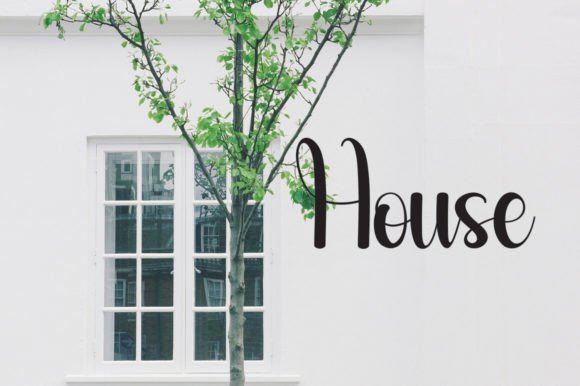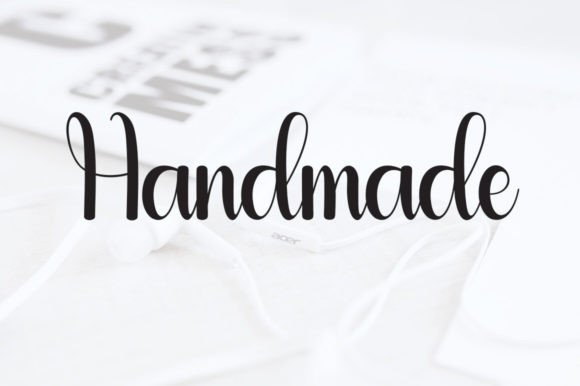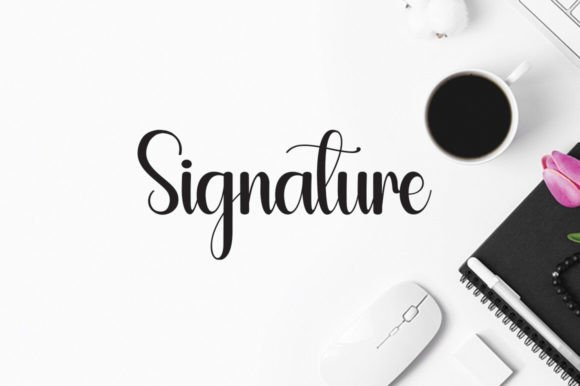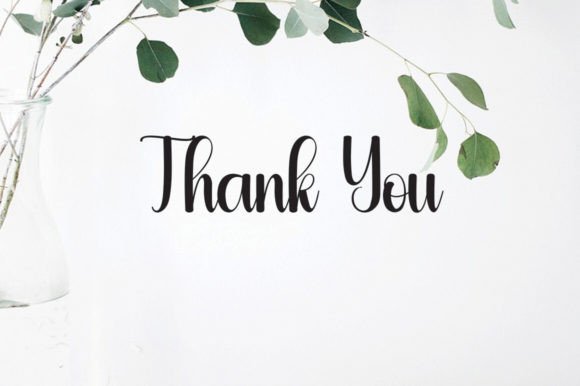
The Joy of Handwritten Elegance: Unveiling the Drawing Book Font
Do you remember the thrill of creating your first handmade card or gift tag? The excitement of watching your scribbles transform into a beautiful, one-of-a-kind masterpiece? For designers, that same magic can be captured with the Drawing Book Font – a charmingly cursive handwritten font that brings a touch of whimsy to any project.
This enchanting font is perfect for designers looking to add a dash of romantic elegance to their work. Whether it’s for a logo, invitation, or any other design concept, Drawing Book Font has the versatility to bring your ideas to life. Its effortless charm and artistic sweetness make it a valuable addition to any designer’s toolkit, ensuring a gorgeous aesthetic every time.
Drawing Book Font Key Features
- Unique Characteristics: The font features a distinctive, hand-drawn style with subtle texture and imperfections, giving it a unique and artistic feel.
- Legibility: Despite its decorative nature, the font remains highly legible, making it suitable for body text, headings, and titles.
- Language Support: The font includes support for multiple languages, including Latin, Cyrillic, and Greek scripts, expanding its usability in global designs.
Review of Drawing Book Font
I’ve had the chance to work with Drawing Book Font, and I must say it’s a unique and charming font. ✨ It’s perfect for projects that need a whimsical touch, like children’s books, educational materials, or even advertisements for art supplies.
- ✨ Beautifully crafted letterforms with a sense of movement and energy
- ✨ Excellent for hand-drawn or digitally created illustrations
- ✨ Wide range of styles and sizes to suit various design needs
However, I’ve encountered some limitations that might make it less suitable for certain projects. ⚠️
- ⚠️ Limited legibility at small font sizes, which can make it difficult to read
- ⚠️ May not be the best choice for formal or professional designs
- ⚠️ Some characters, like the uppercase “I” and “S”, can be quite narrow and might require adjustments
Overall, I think Drawing Book Font is a lovely addition to any designer’s toolkit, but it’s essential to use it judiciously and consider the context of the project. With some careful planning and adjustment, it can add a delightful touch to your designs.
Use Drawing Book Font for hand-drawn or sketch-style designs, such as children’s books, comics, or illustrations. Experiment with different font sizes and styles to achieve a unique look.
Drawing Book Font is ideal for:
– Children’s book covers and illustrations
– Comic book art and graphic novels
– Hand-drawn typography and quotes
– Sketch-style designs and infographics